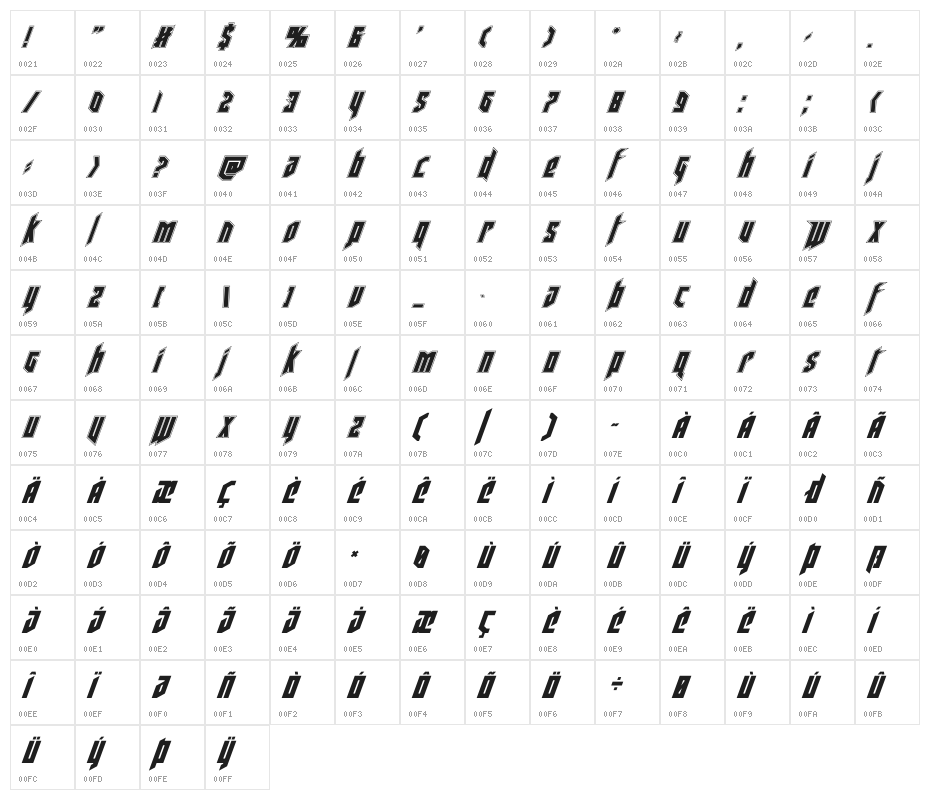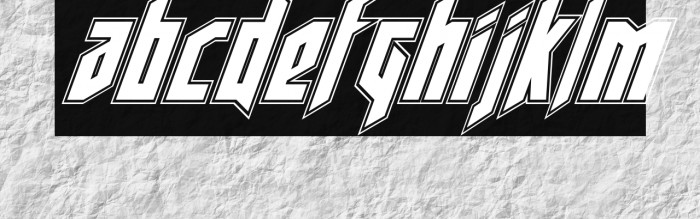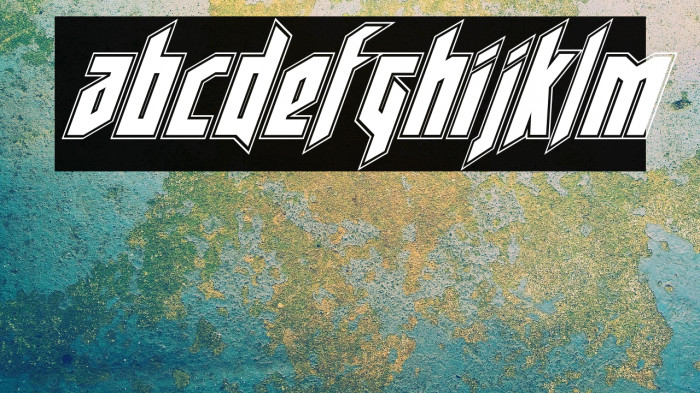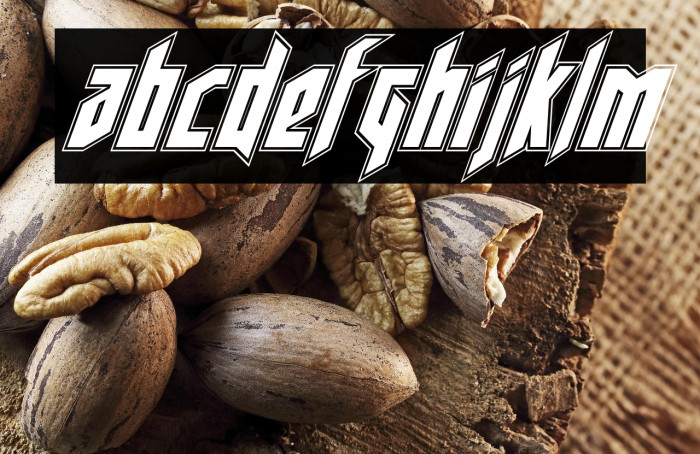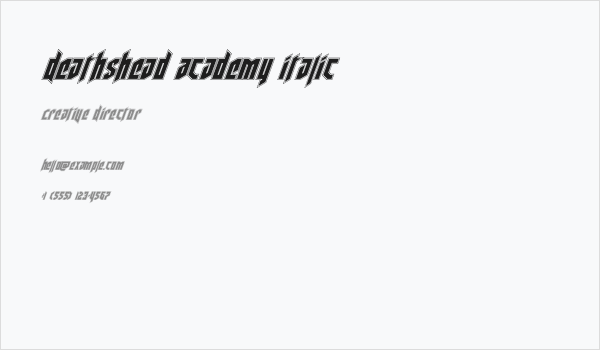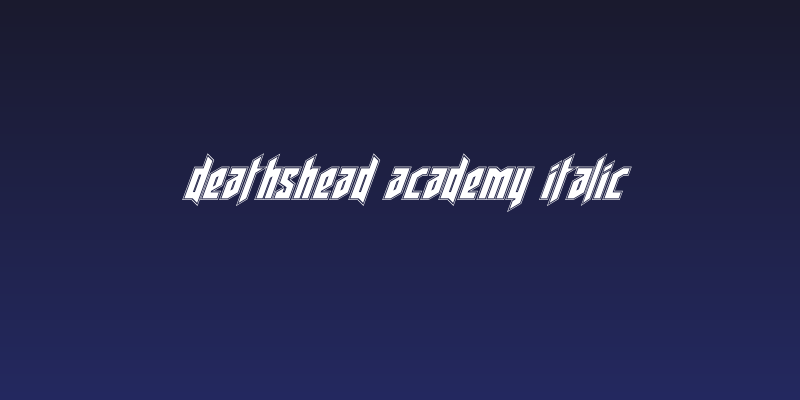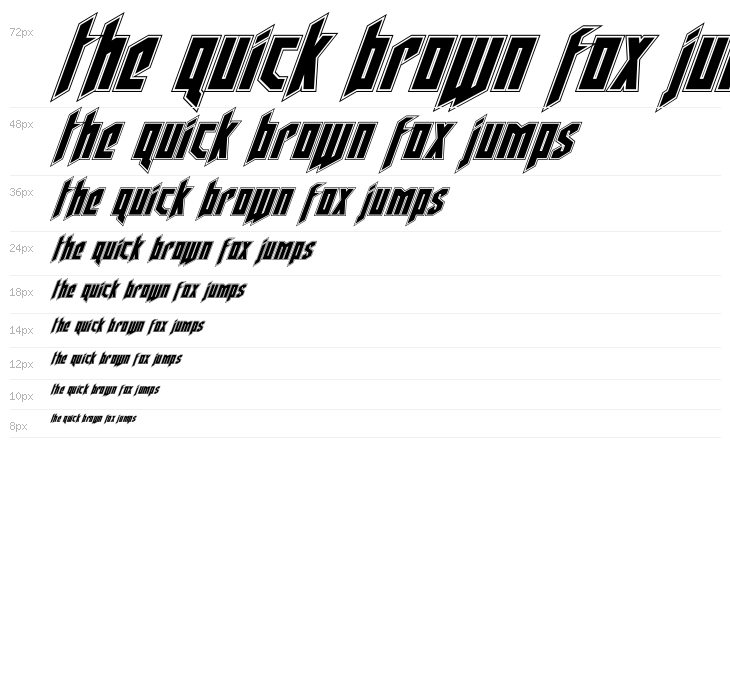
Deathshead Academy Italic Font
Deathshead Academy Italic Description
This font features a bold, italicized style with sharp, angular edges and a distinct futuristic appearance. The characters are heavily stylized, with a strong emphasis on diagonal lines and geometric shapes, giving it a dynamic and aggressive look. The uppercase and lowercase letters maintain a consistent design, with the lowercase slightly smaller but equally impactful. Numbers and special characters follow the same design principles, ensuring uniformity across all glyphs. The font's unique style makes it stand out, ideal for projects that require a bold statement.
| Overall Style | Futuristic, Aggressive |
| Proposed Projects | Ideal for video game titles, sci-fi movie posters, branding for tech companies, or any project needing a bold, futuristic aesthetic. |